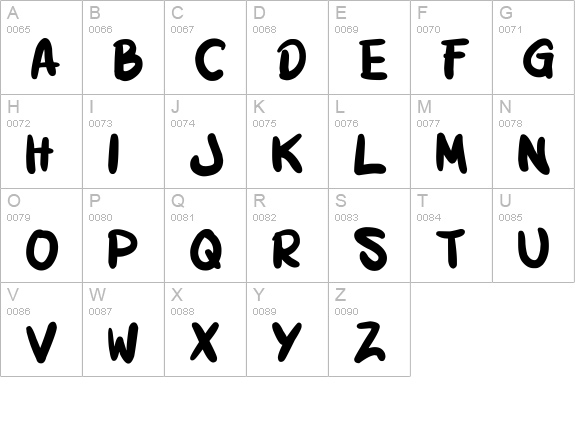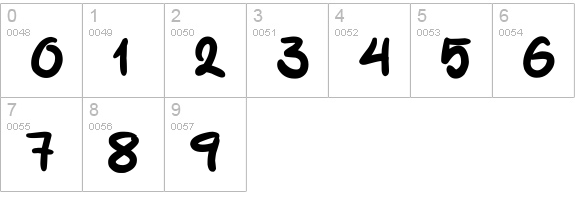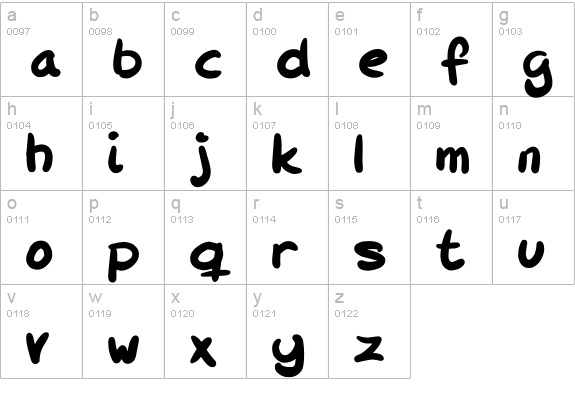
JLEE Font Details
Introducing JLEE font, a stunning typeface that effortlessly blends elegance and modernity. With its sleek lines and graceful curves, JLEE font adds a touch of sophistication to any design project. This versatile font is perfect for a wide range of applications, from branding and packaging to invitations and social media graphics. What makes JLEE font even more appealing is that it is available for free! Yes, you read that right – you can download this beautiful font at no cost from FontsMarket.com. Whether you're a seasoned designer looking to add a fresh new font to your collection or a beginner searching for the perfect typeface for your next project, JLEE font is sure to impress. Don't miss out on this amazing opportunity to enhance your designs with this exquisite font – download JLEE font for free today!